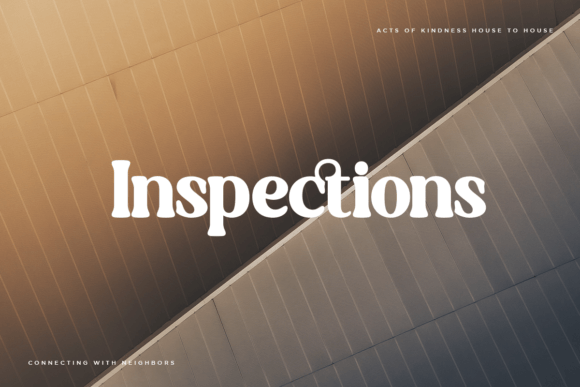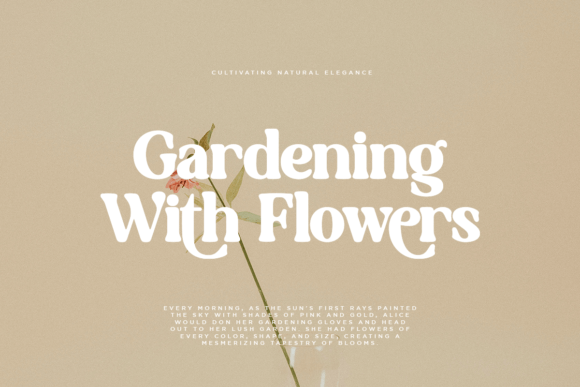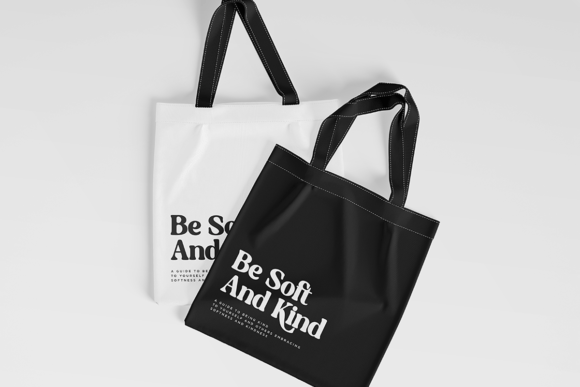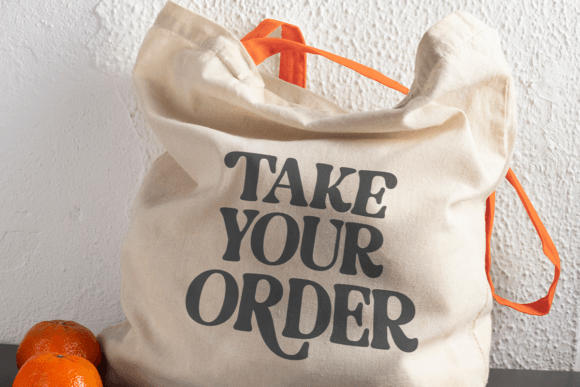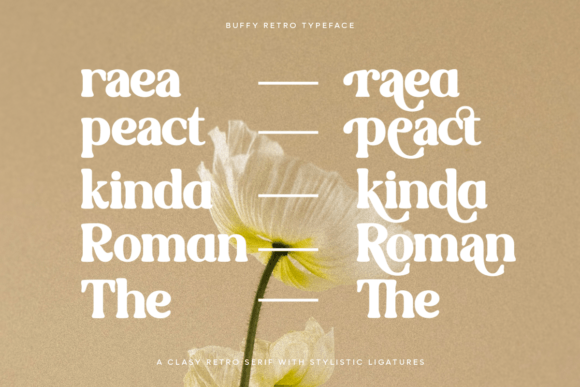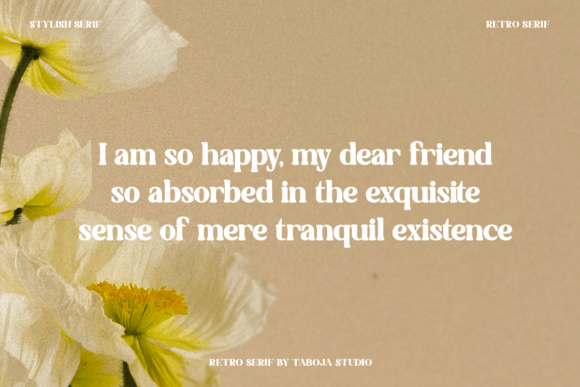
Introducing Buffy Font: Elevate Your Designs with Elegance and Boldness
In the world of typography, a font can make or break a design. If you’re looking for a typeface that exudes elegance, boldness, and a touch of modernity, look no further than the Buffy Font. This stunning serif typeface is designed to make your graphic design projects, posters, and layouts unforgettable. In this article, we’ll dive into the features, benefits, and uses of the Buffy Font, and explore why it’s a must-have for designers and crafters.
What is Buffy Font?
Buffy Font is an elegant serif typeface that boasts a unique and bold display style. By combining classic serif elements with modern touches, this font creates a visually striking appearance that’s sure to capture attention. Whether you’re designing a logo, creating a poster, or crafting a brochure, Buffy Font is the perfect choice for adding a touch of sophistication and elegance.
Key Features of Buffy Font
- Unique and Bold Serif Display Style: Buffy Font features a distinctive serif style that’s both elegant and bold. This makes it perfect for designs that require a strong visual impact.
- Classic Serif Elements with Modern Touches: The font combines traditional serif elements with modern flair, creating a unique and captivating appearance.
Benefits of Using Buffy Font
So, why choose Buffy Font for your design projects? Here are just a few benefits:
- Unforgettable Visual Appeal: With its bold and elegant serif style, Buffy Font is guaranteed to make your designs stand out.
- Versatility: This font is perfect for a wide range of design projects, from posters and logos to brochures and magazines.
- Easy to Use: With PUA encoding and support for OpenType features and Glyphs panels, Buffy Font is easy to use and customize.
Who Can Benefit from Buffy Font?
Buffy Font is a versatile typeface that can benefit a wide range of designers and crafters, including:
- Graphic Designers: Add a touch of elegance and boldness to your graphic design projects.
- Posters and Flyer Designers: Create eye-catching posters and flyers that grab attention.
- Logotype and Branding Designers: Use Buffy Font to create stunning logos and brand identities.
- Crafters and DIY Enthusiasts: Add a professional touch to your craft projects and DIY designs.
Tips for Using Buffy Font
To get the most out of Buffy Font, here are a few tips:
- Experiment with Different Sizes and Colors: Find the perfect combination to make your design pop.
- Pair with Other Fonts: Try pairing Buffy Font with other fonts to create a unique and captivating visual style.
- Use OpenType Features and Glyphs Panels: Take advantage of the font’s advanced features to add an extra layer of creativity to your designs.
In conclusion, Buffy Font is a stunning serif typeface that’s perfect for designers and crafters looking to add a touch of elegance and boldness to their designs. With its unique and bold serif display style, classic serif elements, and modern touches, this font is sure to make your graphic design projects, posters, and layouts unforgettable. So why wait? Download Buffy Font today and take your designs to the next level!